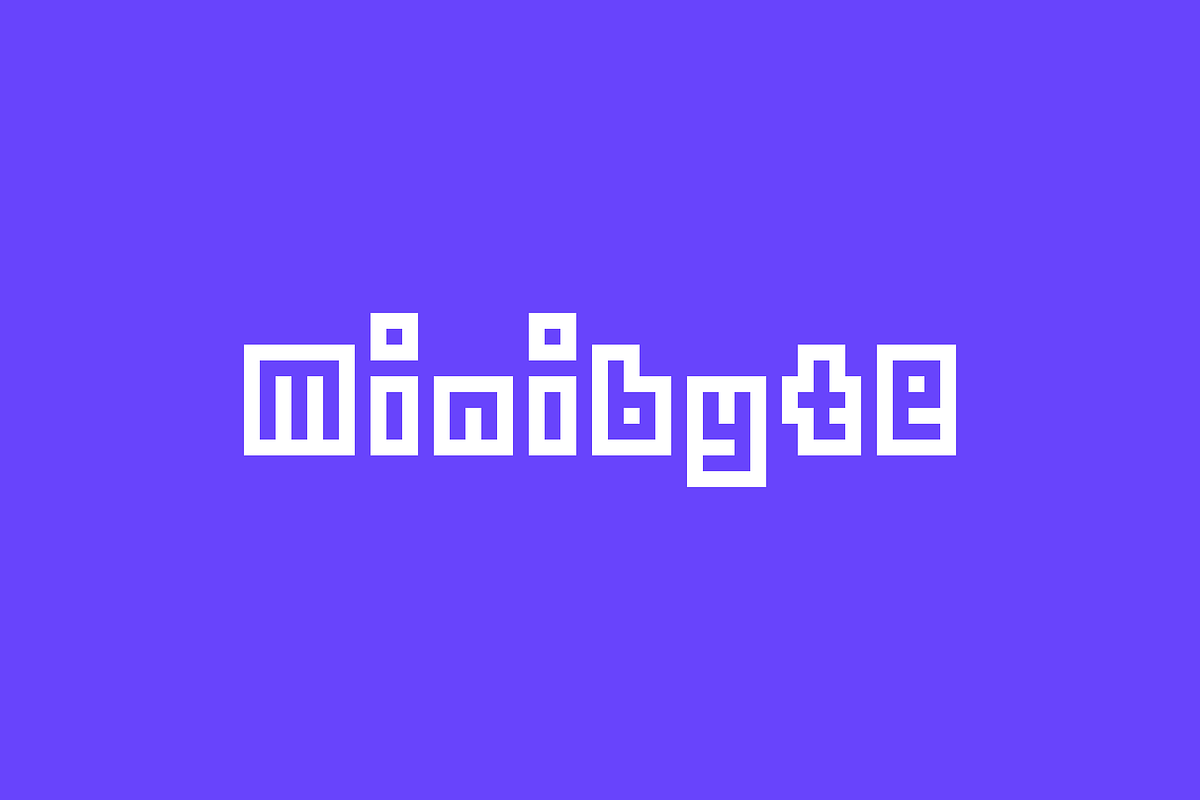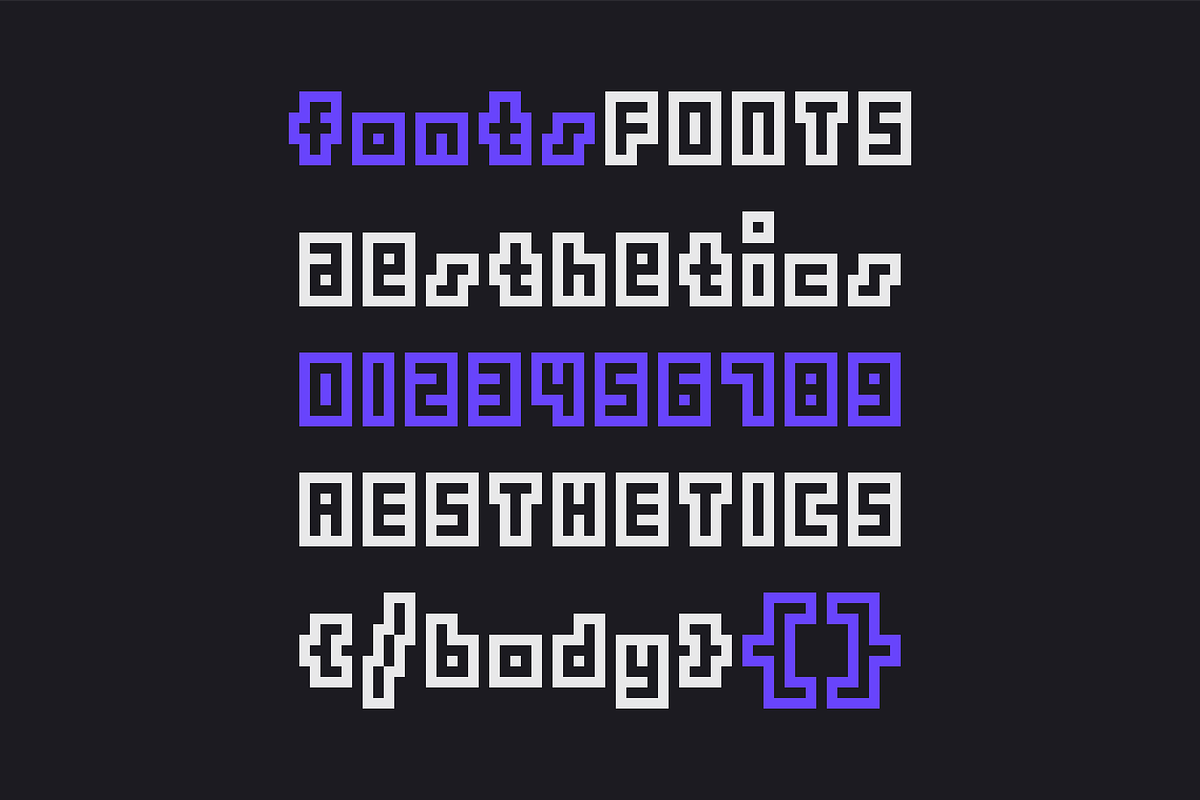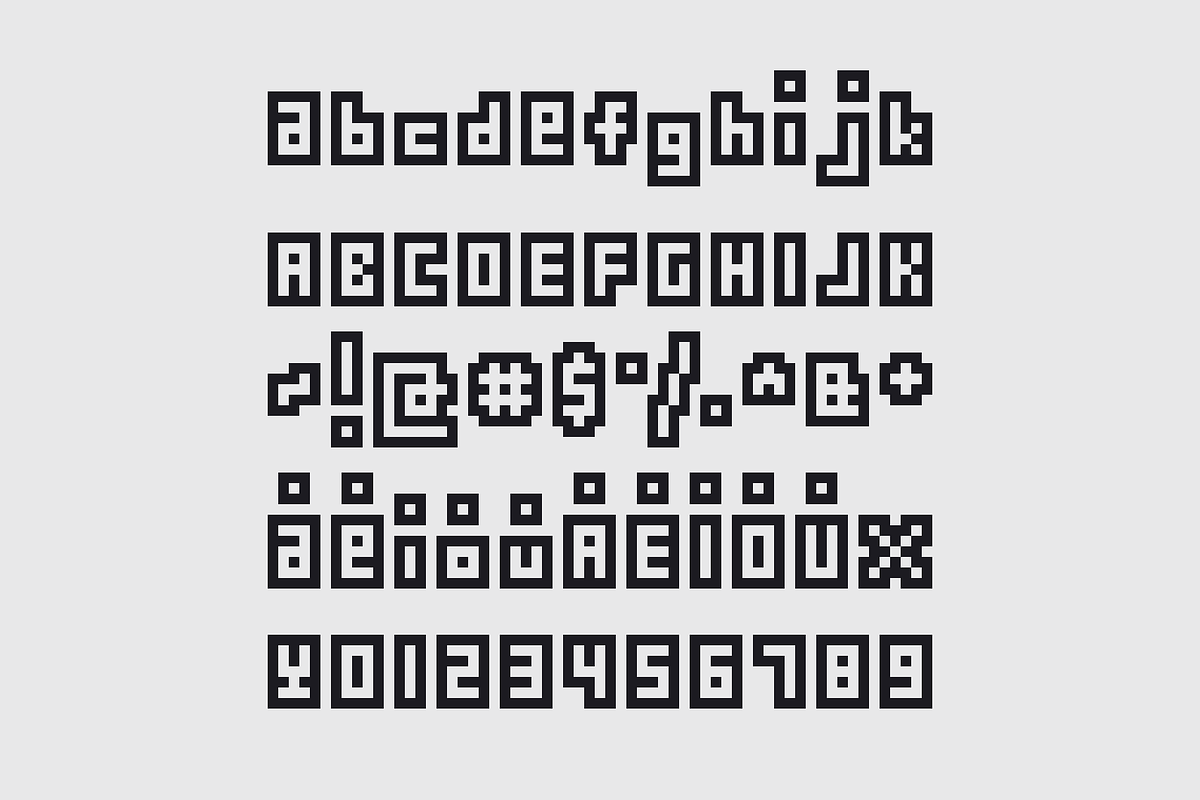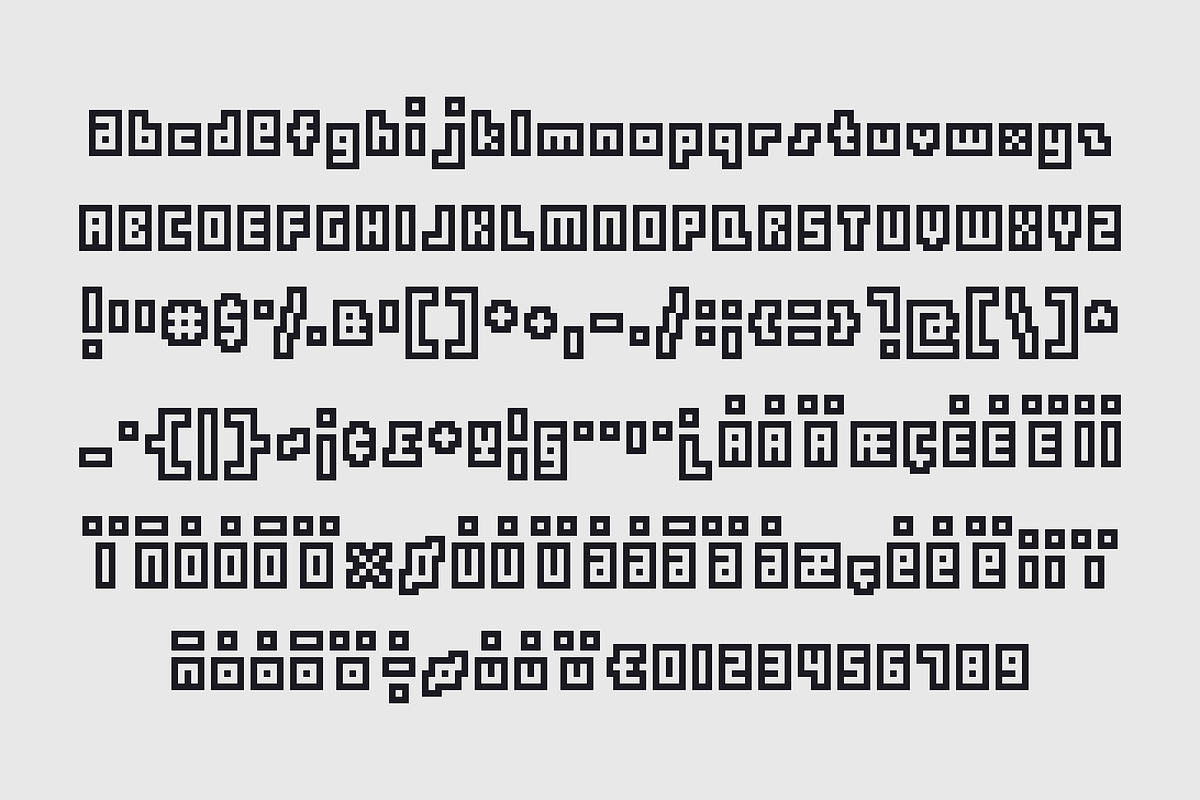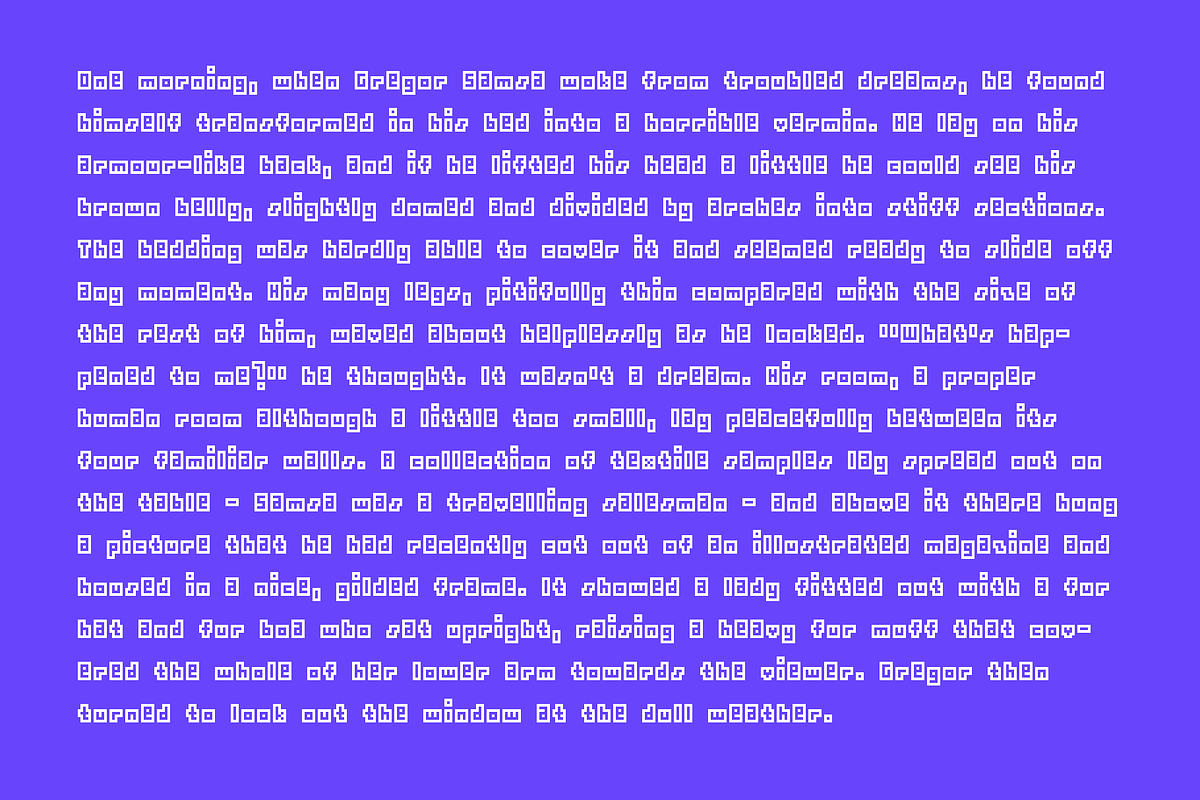
Minibyte
True Type Bitmap Font with Basic Latin support.
- Pixel Font Minibyte
- Pixel perfect at 16px, 32, 48, 64, 80, 96, 112, 128, 144, 160, 176, 192, 208, 224, 240, 256...